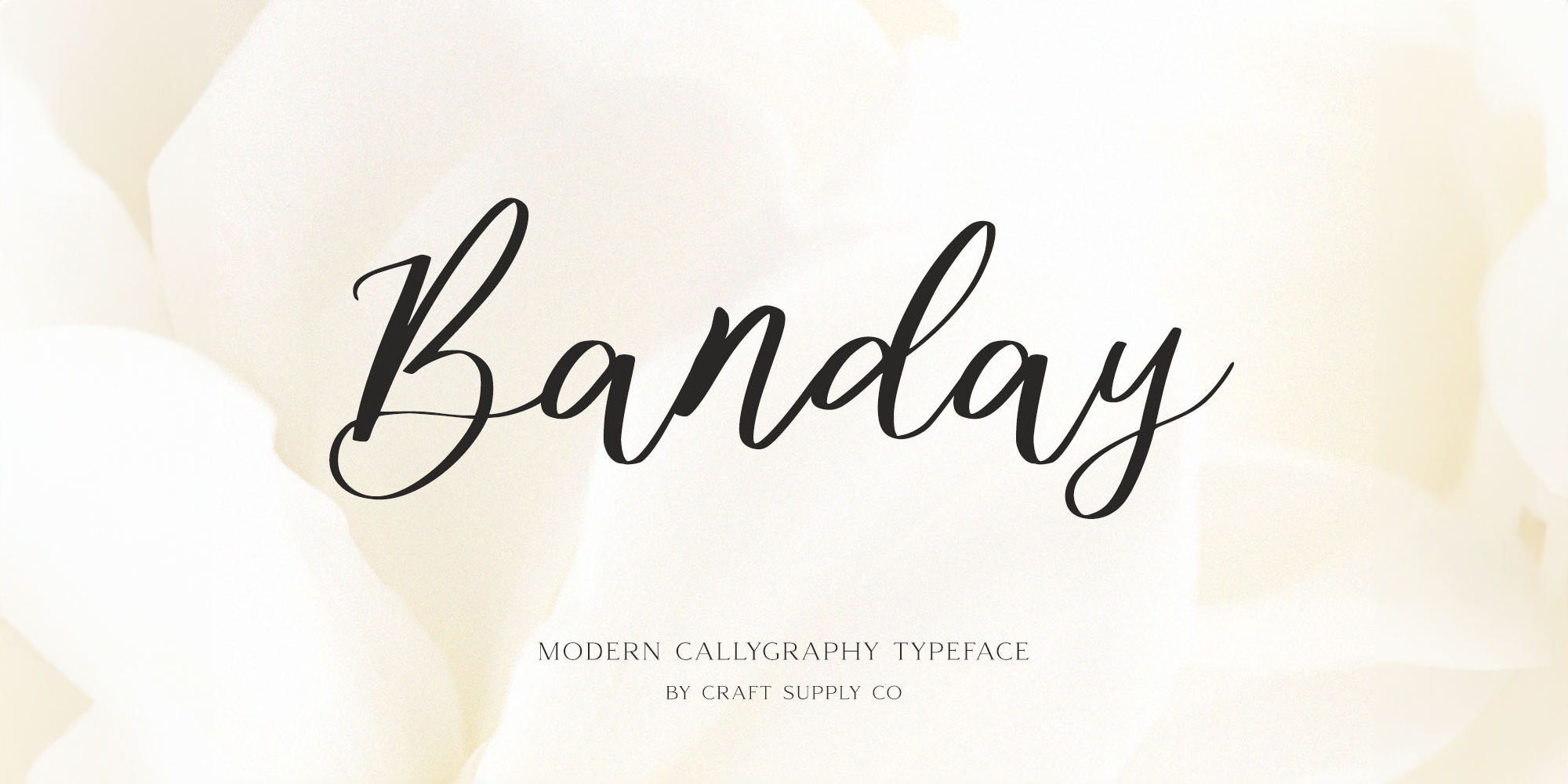
Banday
Banday is a modern calligraphy font family. This typeface has two styles and was published by Craft Supply Co.
Introducing New Font : Banday – Modern Calligraphy
Banday – Modern Calligraphy is a handdrawn calligraphy font based on natural hand flow. Banday – Modern Calligraphy will work perfectly for fashion, e-commerce brands, trend blogs, wedding boutiques or any business that wants to appear upscale and chic.
Banday – Modern Calligraphy also Suitable for Logo, greeting cards, quotes, posters, branding, name card, stationary, design title, blog header, art quote, typography, art, modern envelope lettering or book design, happening style like handdrawn design or watercolor design theme, craft design, any DIY project, book title, or any purpose to make your art/design project look pretty and trendy.